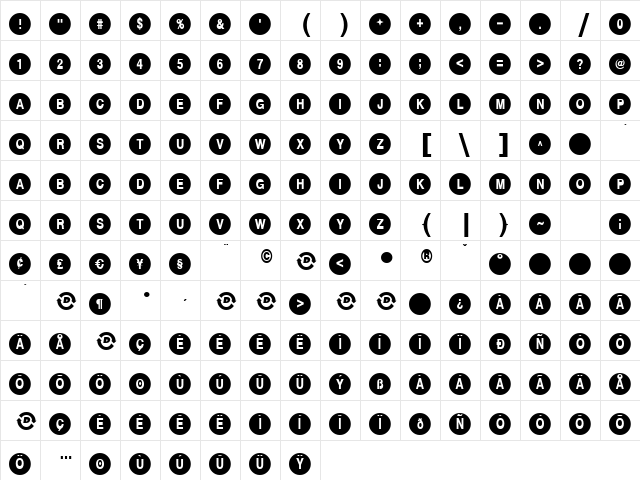
BFBigmouth Regular
Design Context for BFBigmouth Typeface
BFBigmouth is a composed and adaptable typeface that performs quietly and consistently across a wide range of design contexts.